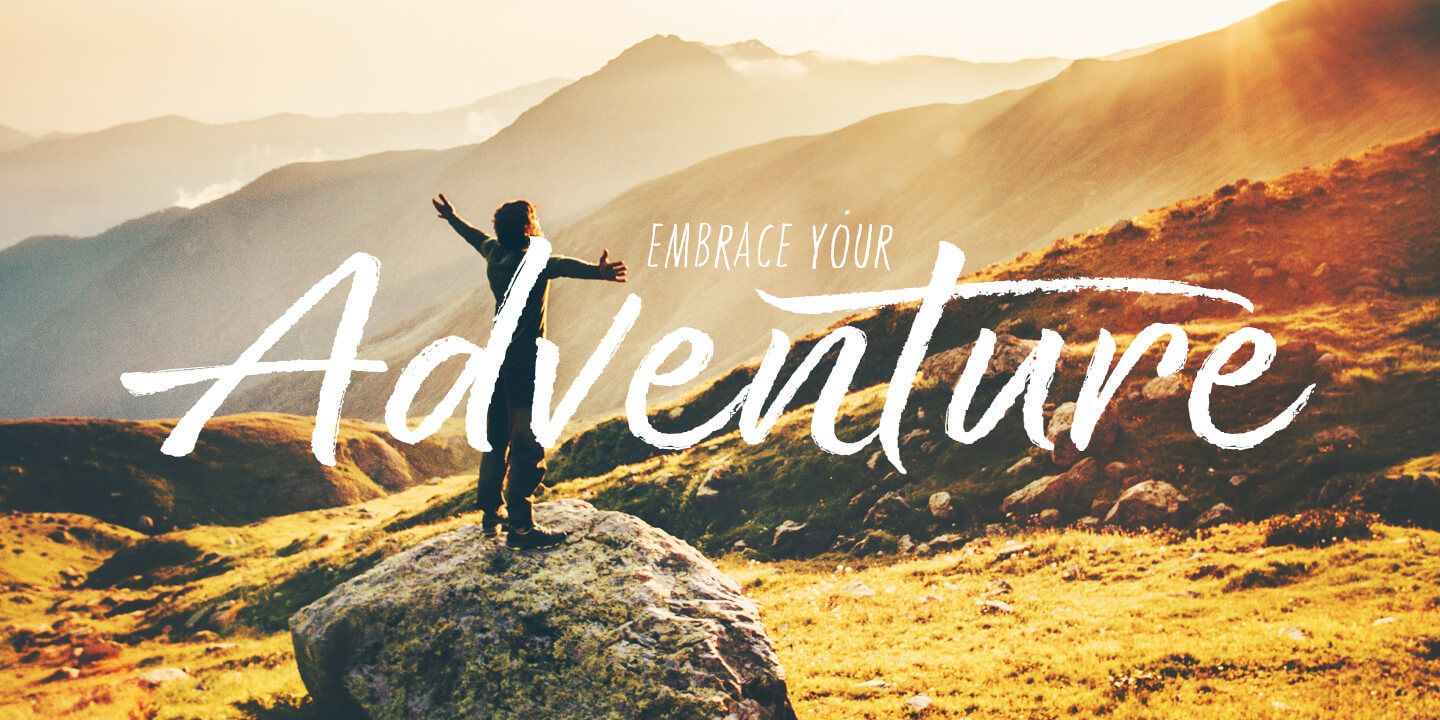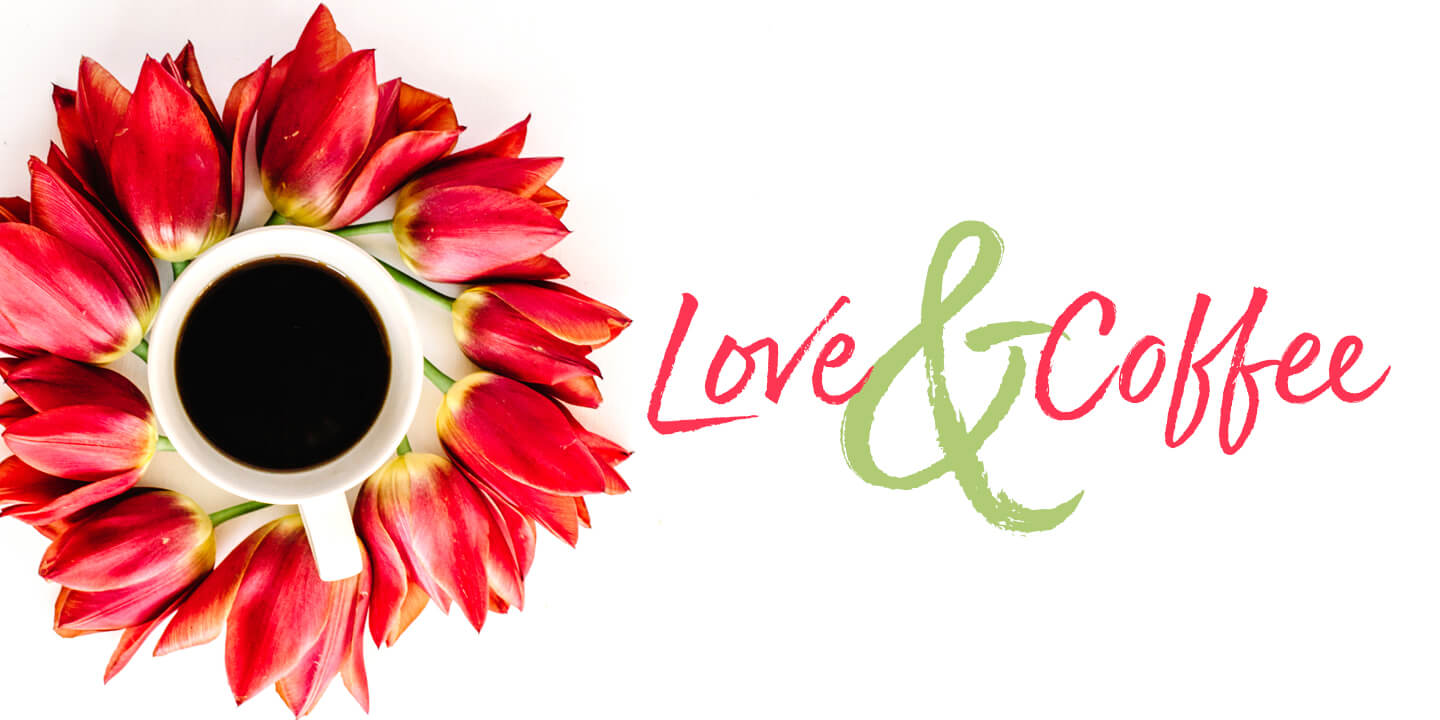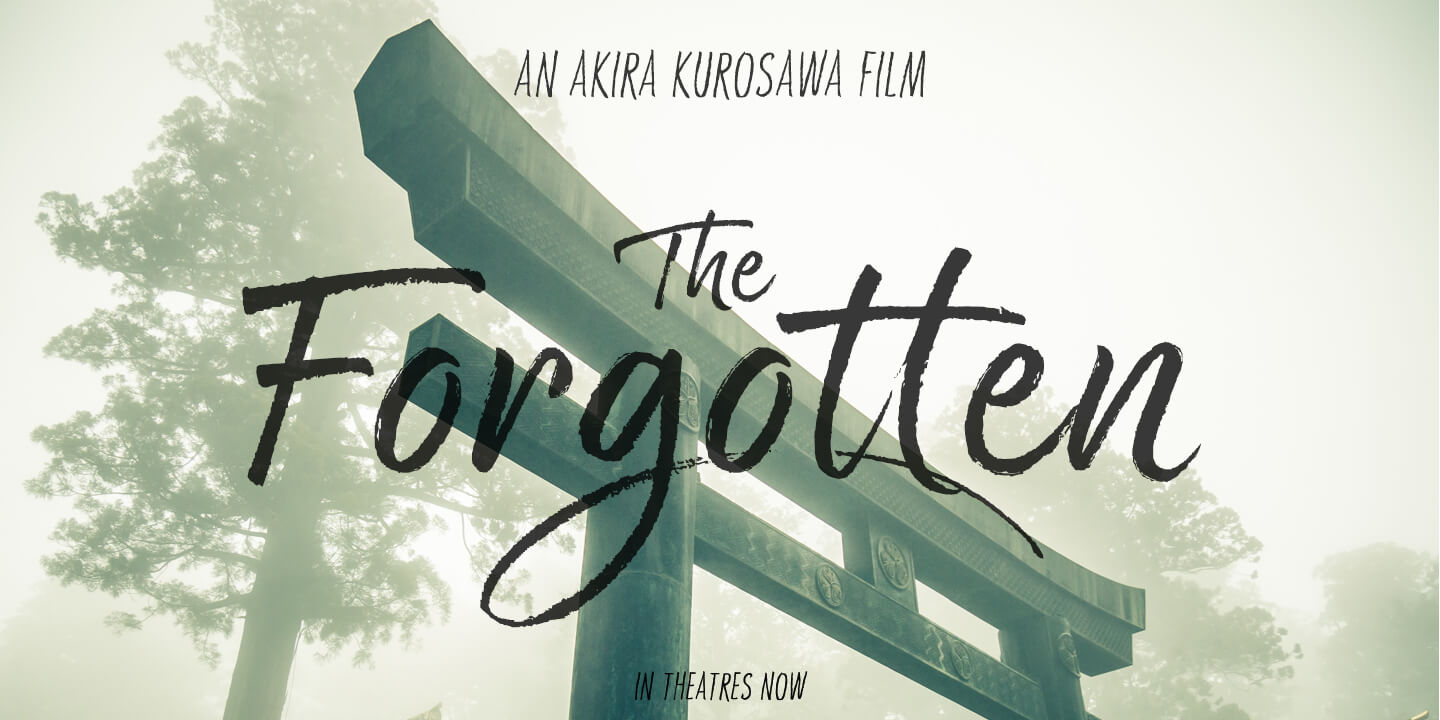
Good Karma
RegularUprightWideWide UprightCaps
ff gg oo ss
Standard Ligaturesliga
g m n t
Swashswsh
a g h k y
Stylistic Alternatessalt
A G K R Y
Stylistic Set 1ss01
Refers to the spiritual principle of cause and effect where intent and actions of an individual (cause) influence the future of that individual (effect)
Good karma is not a private possession. It travels outward from the small kindnesses we offer without expectation, the patience we give when it is not deserved, the generosity we share when no one is watching. Each gesture moves quietly through the lives of others, and somewhere down the long line, it returns.
Good Karma (its namesake) will be extended to you as you use this new relaxed script family. Produced from hand and sumi brush of Neil Summerour, Good Karma is a natural brush textured font family. Good Karma is filled with a lot of heart, reliable and genuine movements, and a wide range of letter options to befit any project needing an honest hand-lettered look.
Each typeface comes with an additional set of stylistic alternates (upper AND lowercase) that harmonize wonderfully when you have the Opentype Ligature feature active. Additionally, special double-letter ligatures have been produced for specific combinations in need of more expressive flair, as well as a few swashes that work with the economical strokes originally produced from the sumi brush.
To further expand the usefulnesss of this peaceful script, a separate Caps/Small Caps font has been added that provides the simple contrast needed to bring the script fonts forward.
Rather than limit the personality of this script, various styles have been produced to complement the original Regular—Upright, Wide, Wide Upright, and the aforementioned Caps fonts are included in hopes of helping you find the perfect variation needed for your composition.
Good Karma is the first release of the Positype Relaxed Script Collection of typefaces—all focused on fluid, effortless script fonts for simple use.